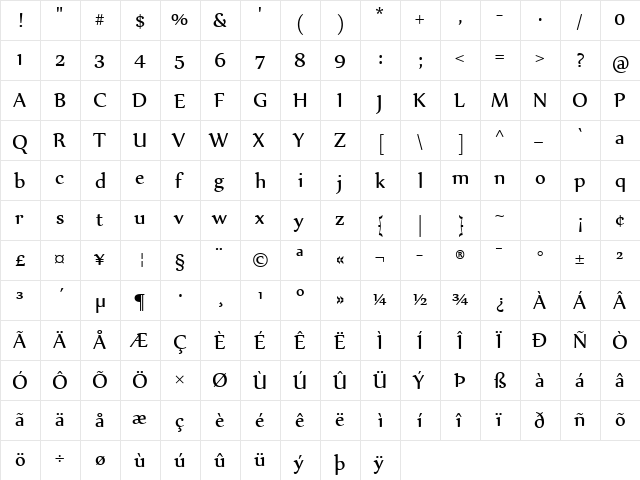
Nyala Regular
| Foundry | Tiro Typeworks |
| Designer | John Hudson and Geraldine Wade |
Design Context for Nyala Typeface
Nyala offers clean, dependable letterforms without strong stylistic allegiance, making it a practical choice for designers who need flexibility.